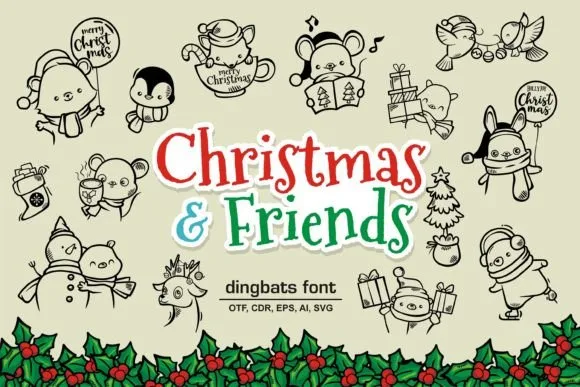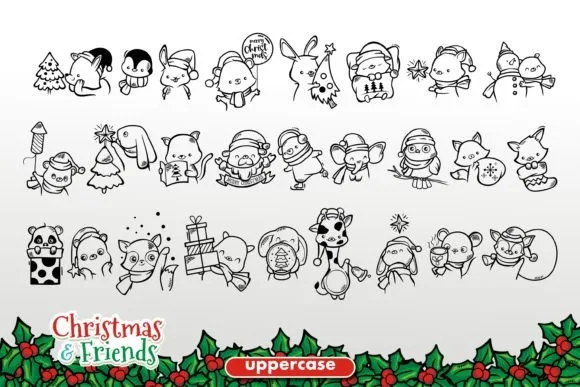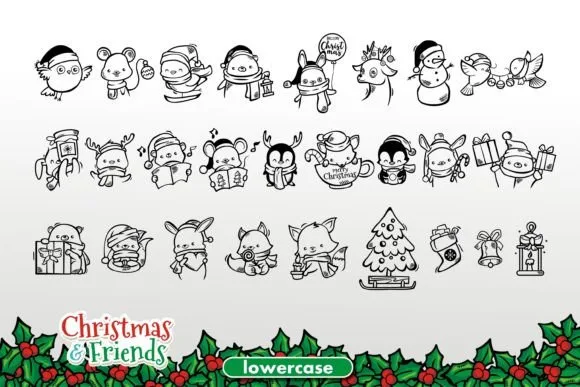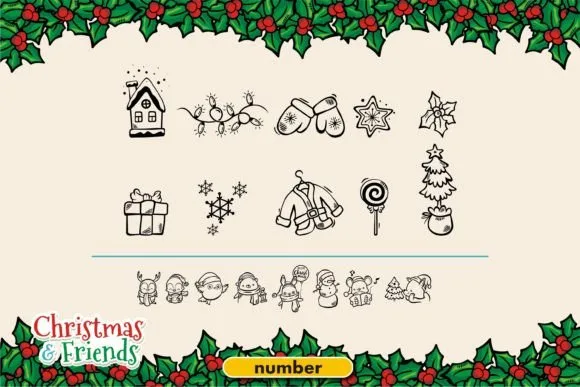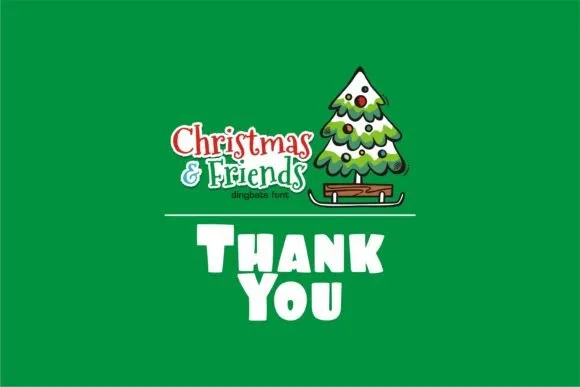
Christmas and Friends Font
About Christmas and Friends Font
Certainly! Christmas and friends is a charming and versatile dingbats font that embodies the spirit of the holiday season. With its delightful collection of Christmas-themed glyphs, it offers a wide range of design possibilities for your winter crafts.
Whether you’re working on greeting cards, invitations, posters, or any other festive project, this font will bring a touch of sweetness and warmth to your designs. Each dingbat captures the essence of Christmas, from cheerful snowflakes and jolly Santas to adorable reindeer and cozy winter scenes.
The beauty of this font lies in its ability to evoke nostalgia and create a sense of togetherness. The carefully crafted glyphs invite you to immerse yourself in the magic of Christmas and share the joy with your loved ones. By incorporating these whimsical dingbats into your creations, you can evoke a sense of wonder and create a memorable experience for your audience.
Furthermore, Christmas and friends is not limited to traditional paper-based crafts. Its versatility allows you to explore various mediums and platforms, from digital designs and social media graphics to DIY projects and holiday-themed merchandise. The font’s expressive and eye-catching nature will ensure that your creations stand out and make a lasting impression.
So, whether you’re a professional designer or someone who simply enjoys spreading holiday cheer, Christmas and friends is the perfect font to add that extra touch of magic to your winter crafts. Let your creativity flourish, and watch as this sweet and festive font transforms your projects into cherished keepsakes that capture the joy and spirit of Christmas.